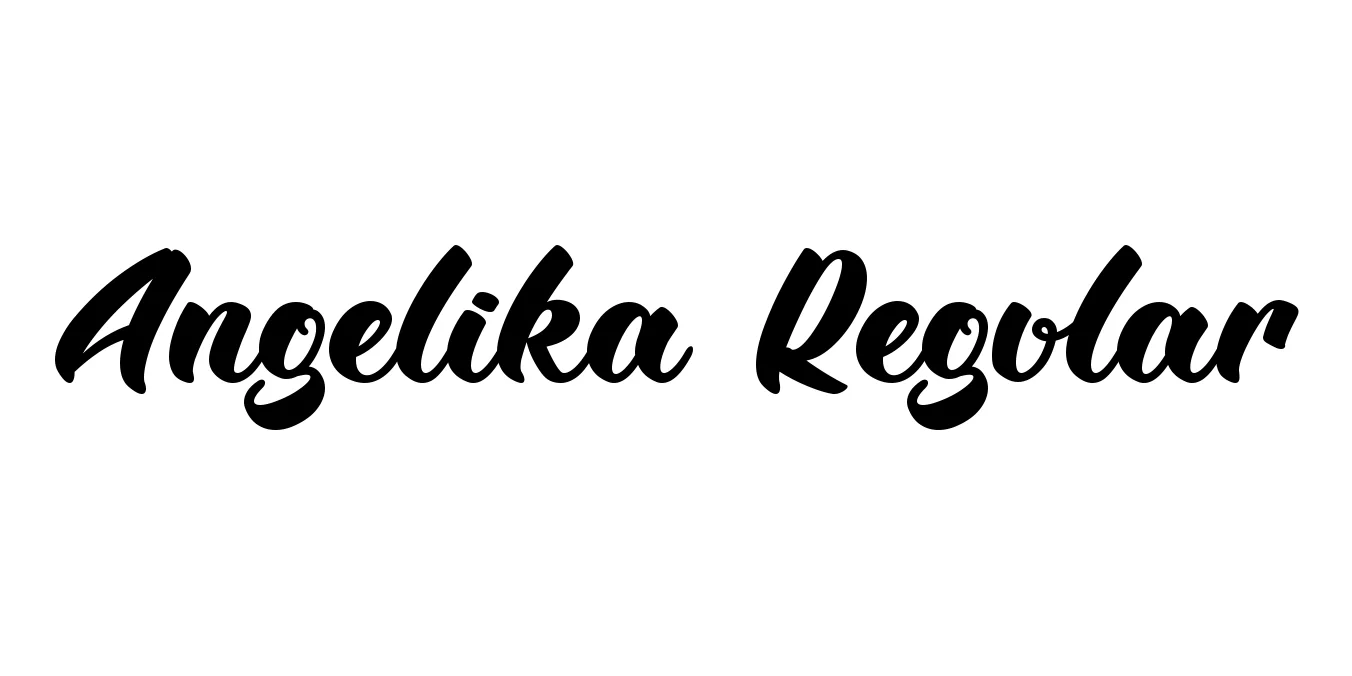
Angelika Regular
Designed by Vunira
| Font Name | Angelika |
| Designer | Vunira |
Angelika Regular is a sophisticated script typeface that embodies elegance and modern calligraphy. Developed with fluid strokes and a balanced weight, it offers a natural hand-lettered feel that is both legible and stylish. Its rhythmic flow makes it an excellent choice for design projects requiring a touch of human connection and artisan quality.
This font is particularly popular in the wedding and branding industries due to its romantic aesthetic. It features a variety of swashes and ligatures that allow designers to create unique, personalized compositions for invitations, luxury packaging, and editorial layouts. The Angelika family continues to be a staple for those seeking a blend of classic charm and contemporary flair.
Angelika Regular Best Uses
Ideal for elegant invitations, RSVP cards, and place settings.
Perfect for creating inspirational quotes and stylish Instagram graphics.
Suited for boutique branding, beauty products, and signature-style logos.